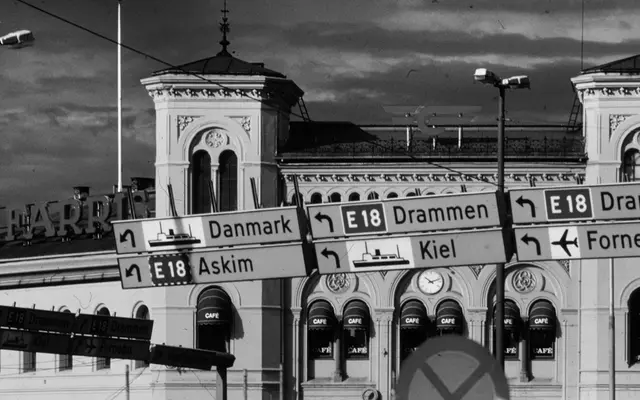
Store Norske Trafikk
Store Norske Skriftkompani · Arve Båtevik
A constructed sans-serif rooted in Norwegian road signage tradition, drawing on Trafikkalfabetet, DIN 1451 and British Transport as its chief references.
Designed by Arve Båtevik, Trafikk extends and refines the visual language of Karl Petter Sandbæk's 1965 Trafikkalfabetet, developed for the Norwegian Public Roads Administration. The family is currently available in Medium and Medium Italic, with broad Latin Extended coverage spanning Nordic, Baltic, Central and South-Eastern European scripts, as well as Sami languages. Its constructed, rational letterforms are well suited to signage, wayfinding and institutional applications where clear legibility at distance is required.
Explicitly described as a constructed sans-serif, drawing on the lineage of DIN 1451, British Transport and the Norwegian Trafikkalfabetet of 1965, placing it firmly in the engineered, geometric-rational tradition of wayfinding typefaces.